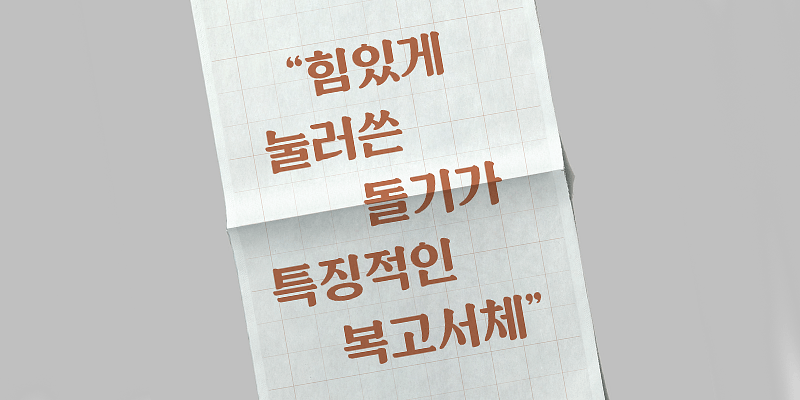
Sandoll Kwangya is a masculine twin font created based on Soon Myeongjo.
Kwangya, the font with Gothic structures and Soon Myeongjo forms, has almost every stroke separated, giving it a harsh and masculine feel. Its twin font Camellia, in contrast, has a soft and curved feminine feel.